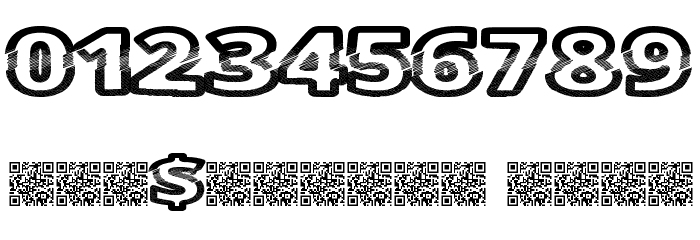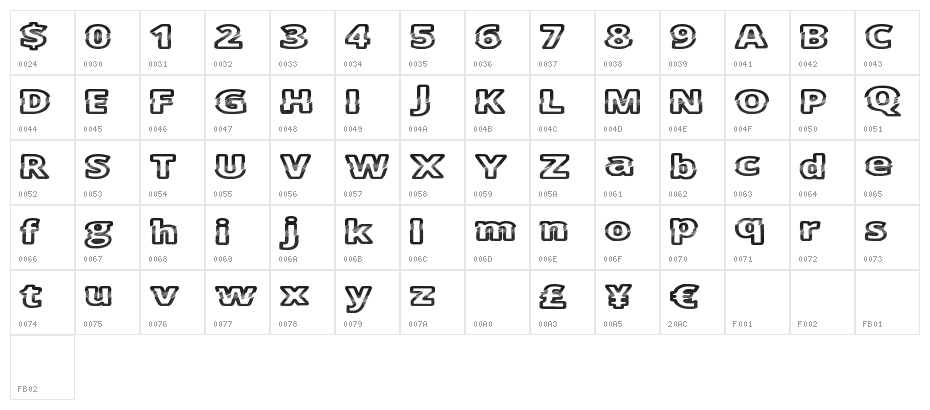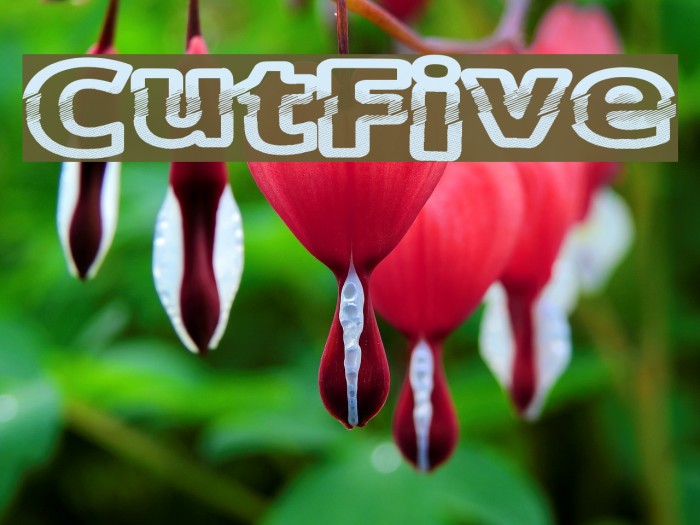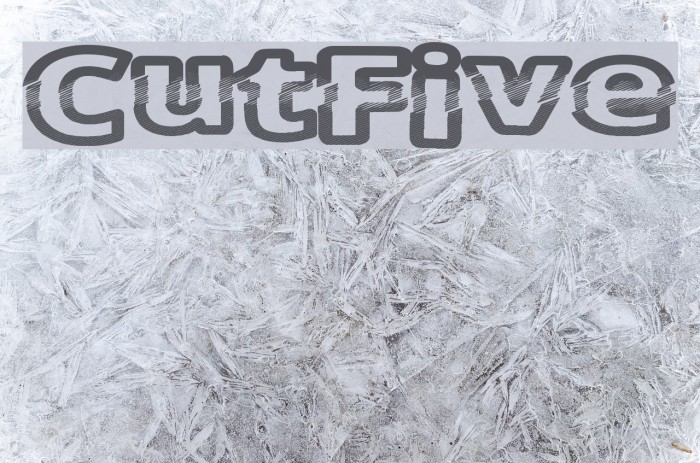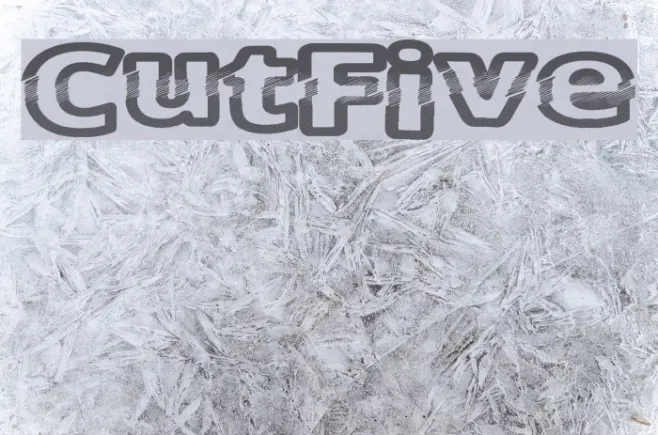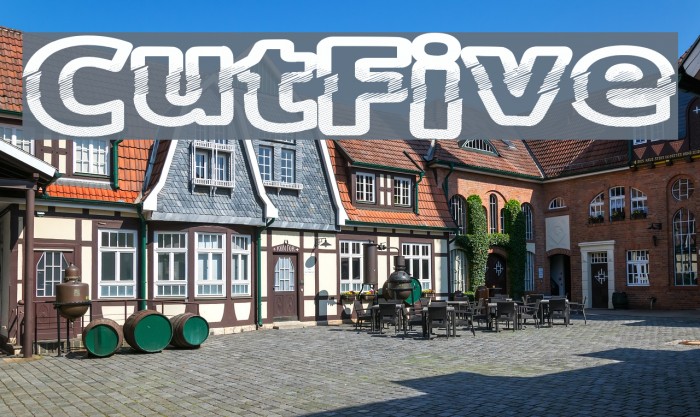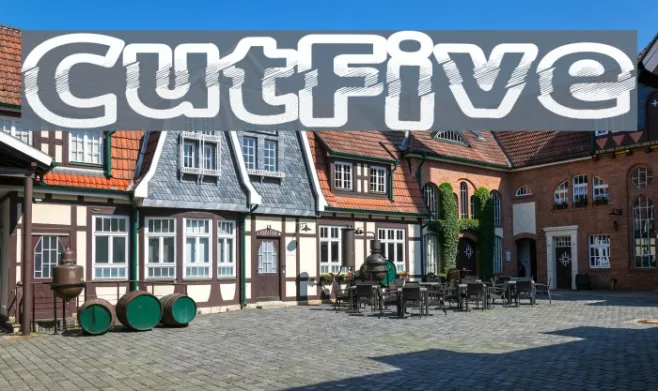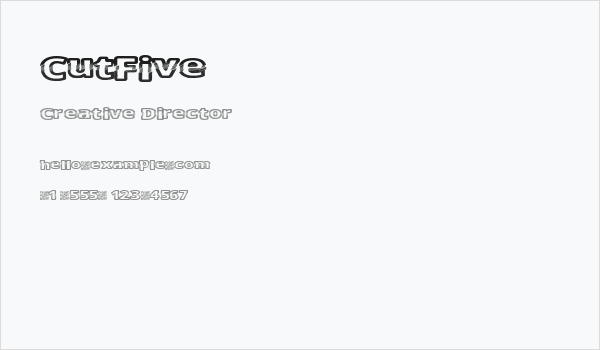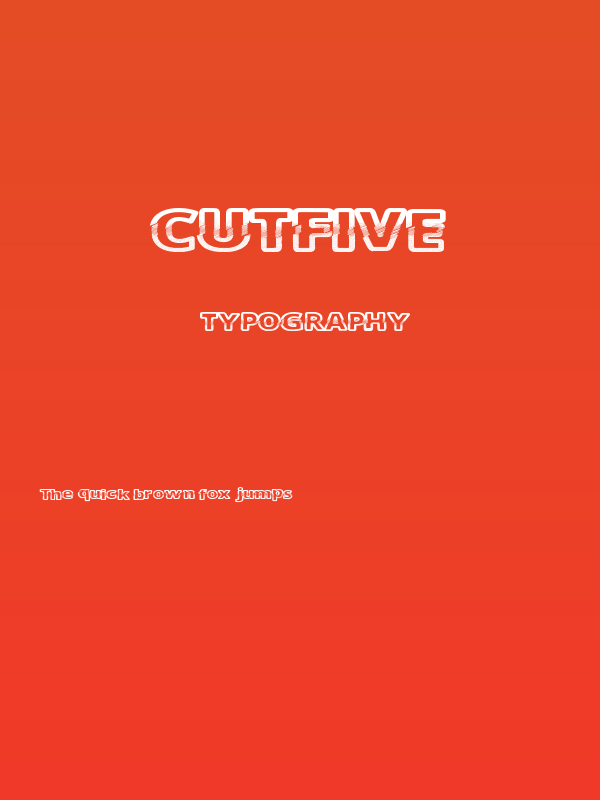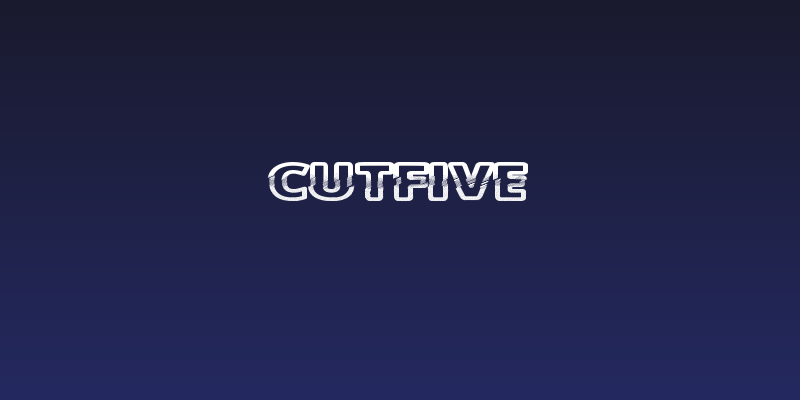
CutFive Font
CutFive Description
This font features a bold, outlined style with a distinct shadow effect that gives it a three-dimensional appearance. The characters are uppercase and lowercase alphabets, numerals, and a selection of special characters. The design is playful yet structured, making it suitable for eye-catching displays. The bold outlines and shadowing create a sense of depth, enhancing its visual impact. The font maintains a consistent weight throughout, with a slightly expanded width that contributes to its readability and presence.
| Proposed Projects | Ideal for posters, headlines, branding, and any project requiring a standout, playful typeface. |